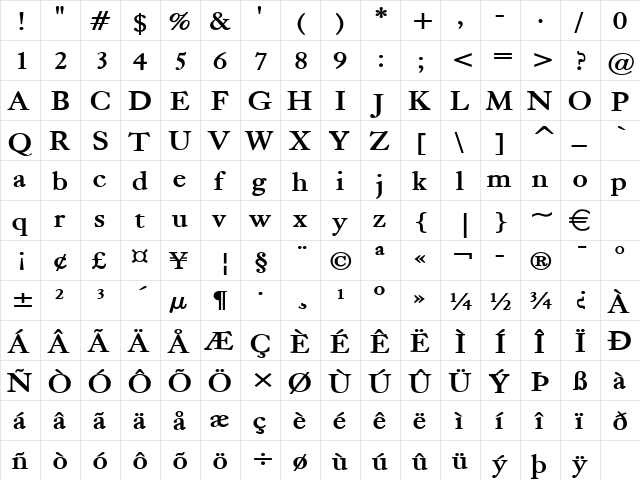
BlissWide Bold Font Preview
BlissWide Bold
Design Context for BlissWide Typeface
BlissWide is a composed and adaptable typeface that performs quietly and consistently across a wide range of design contexts. Its bold stroke weight gives it real presence on the page.